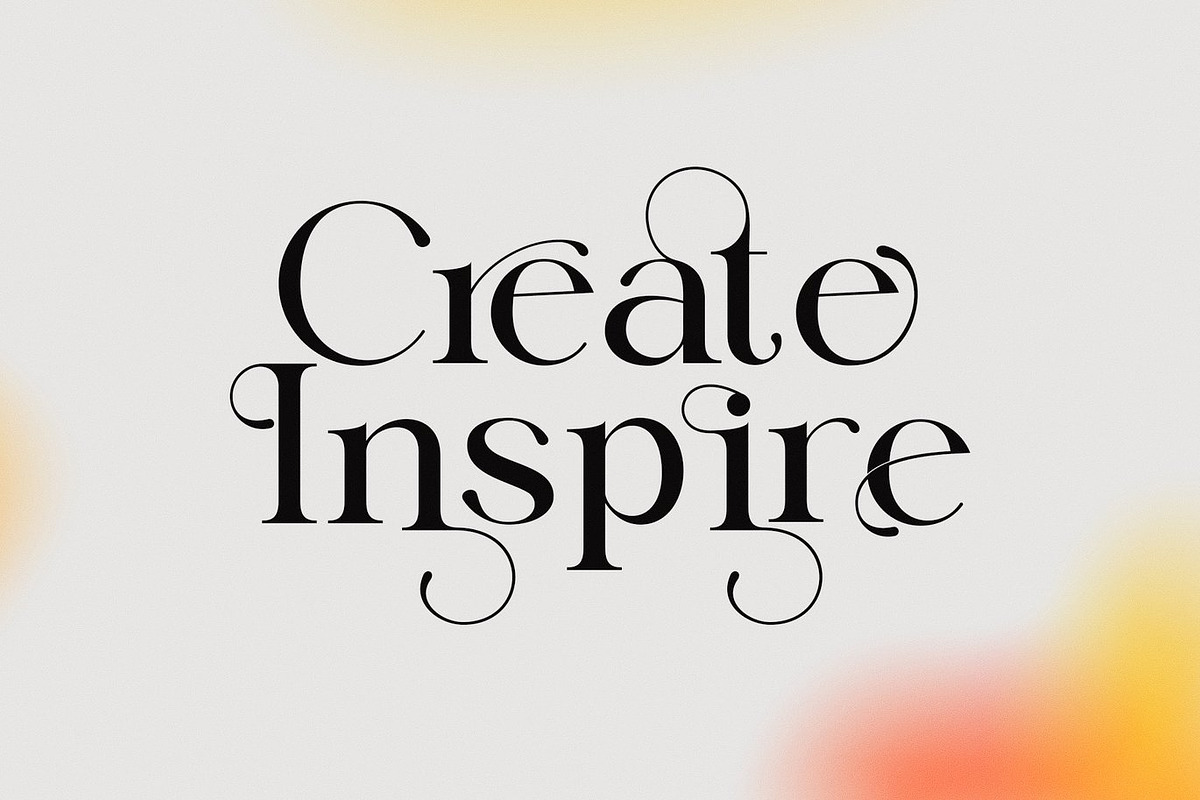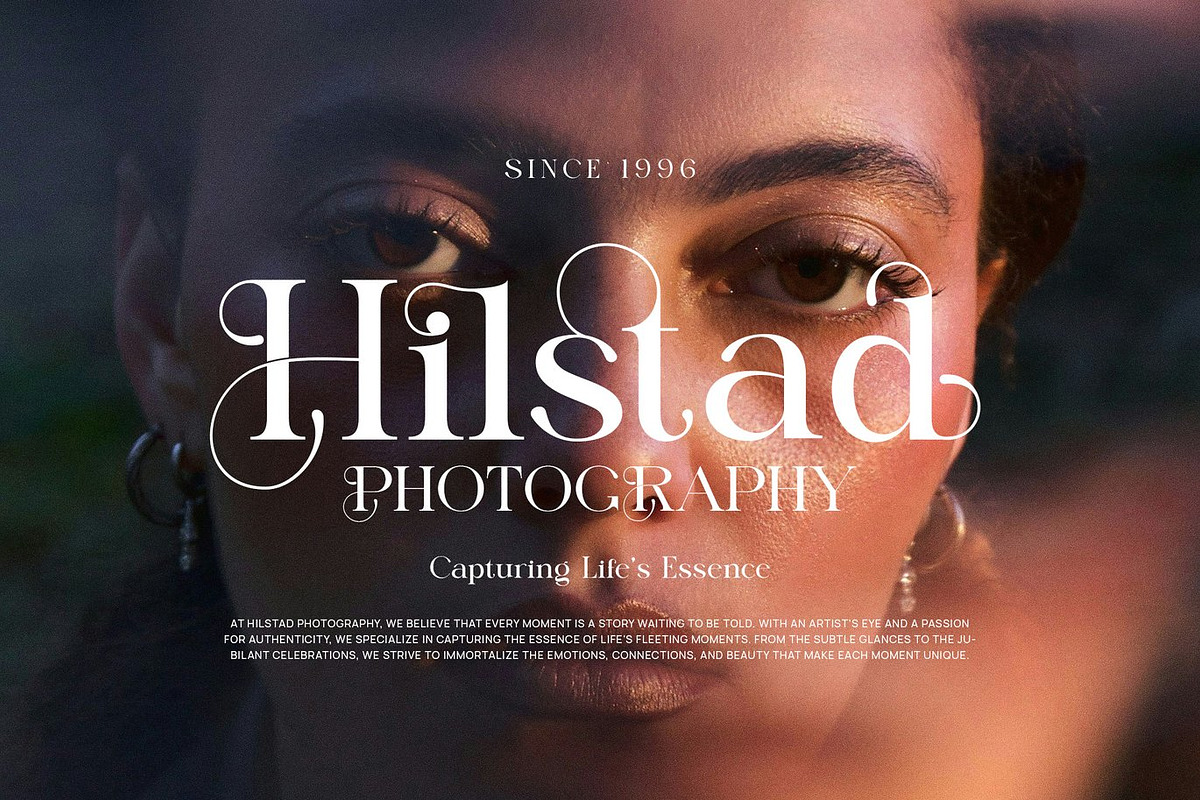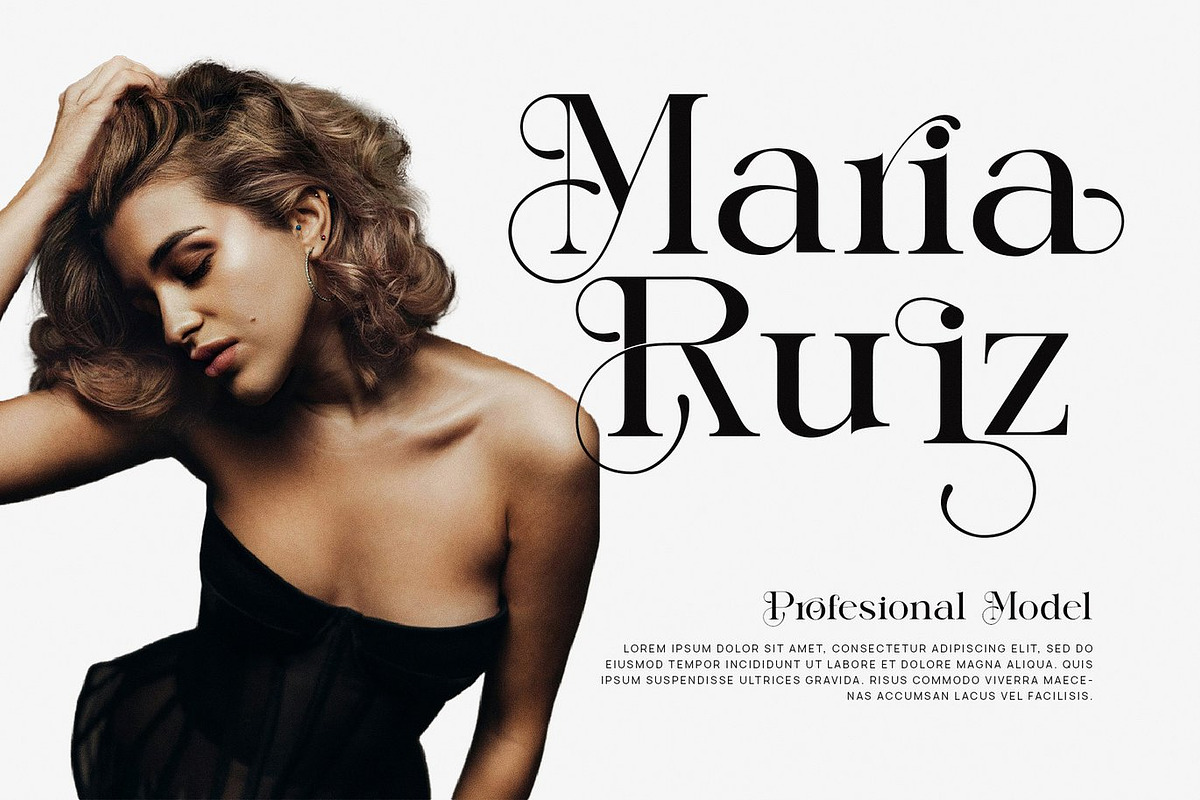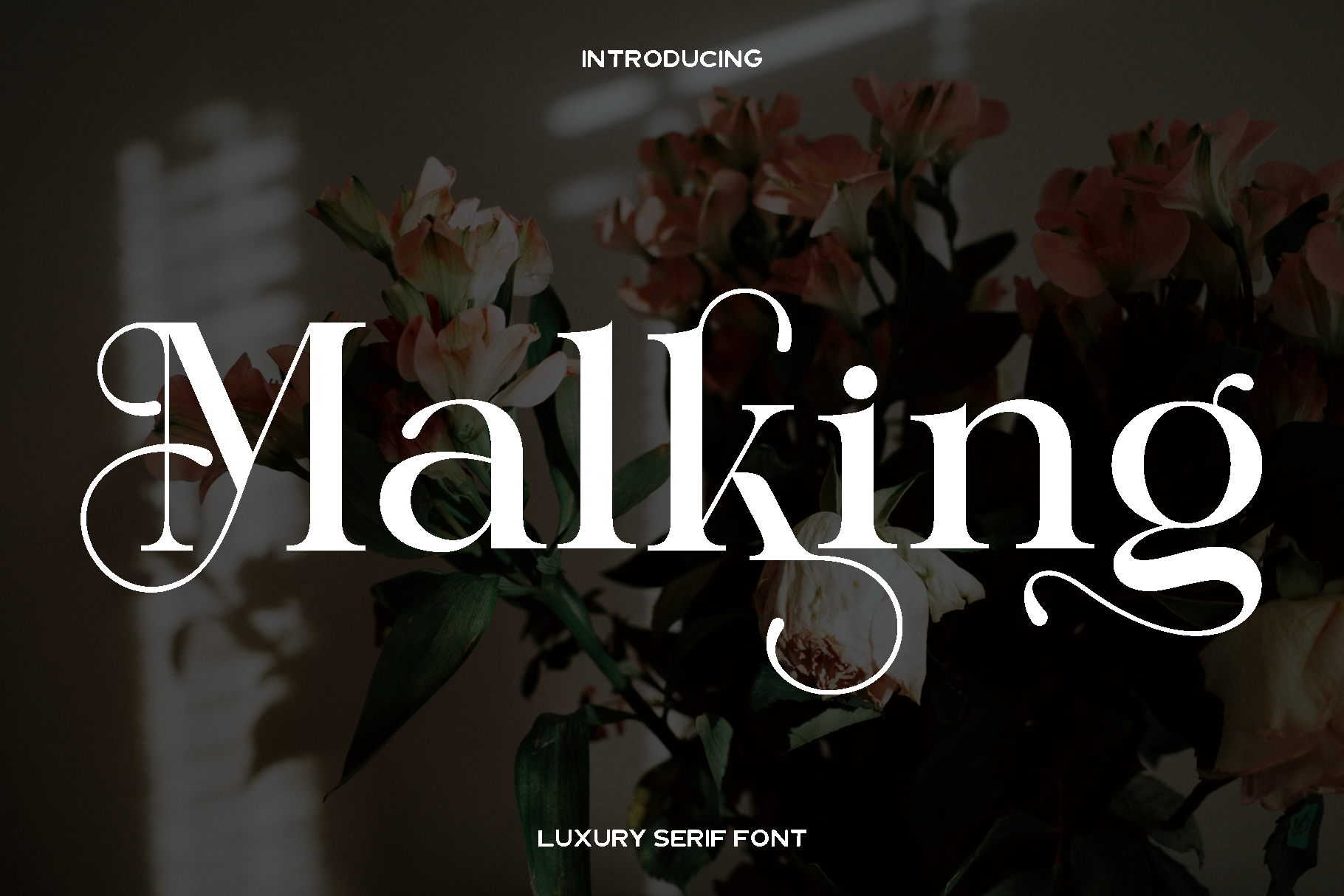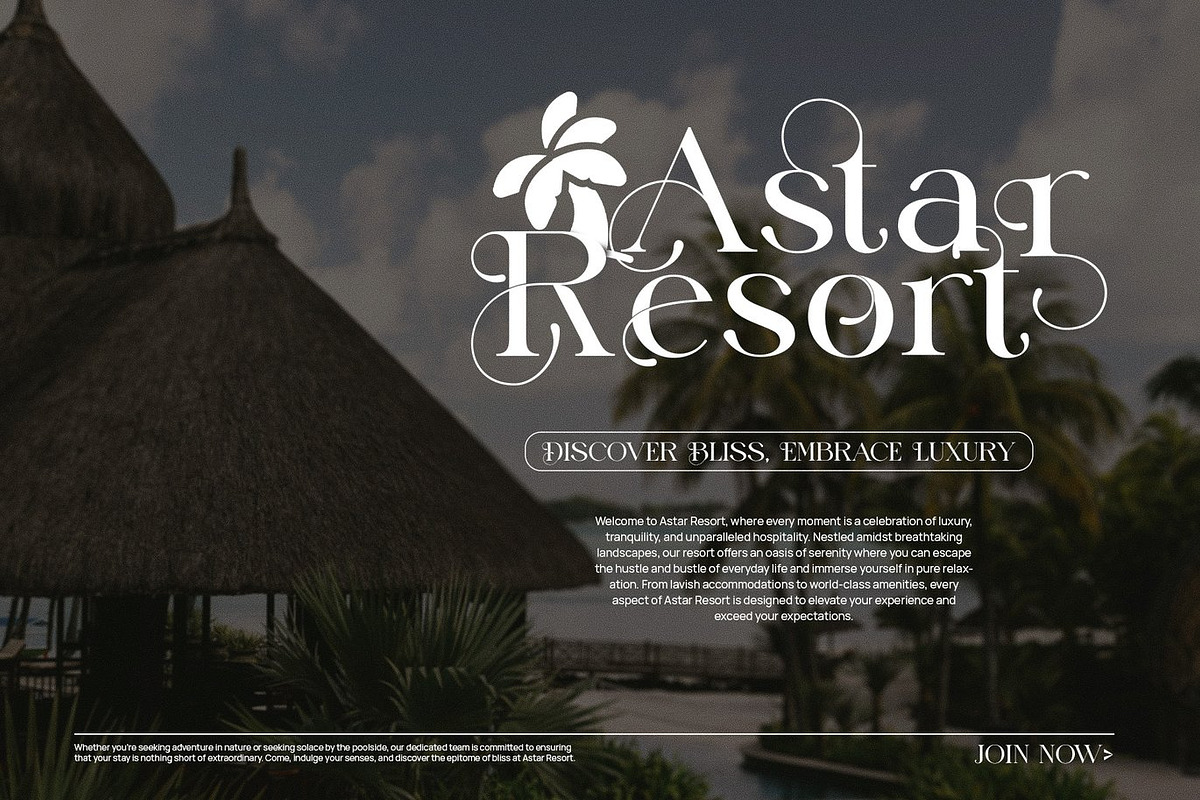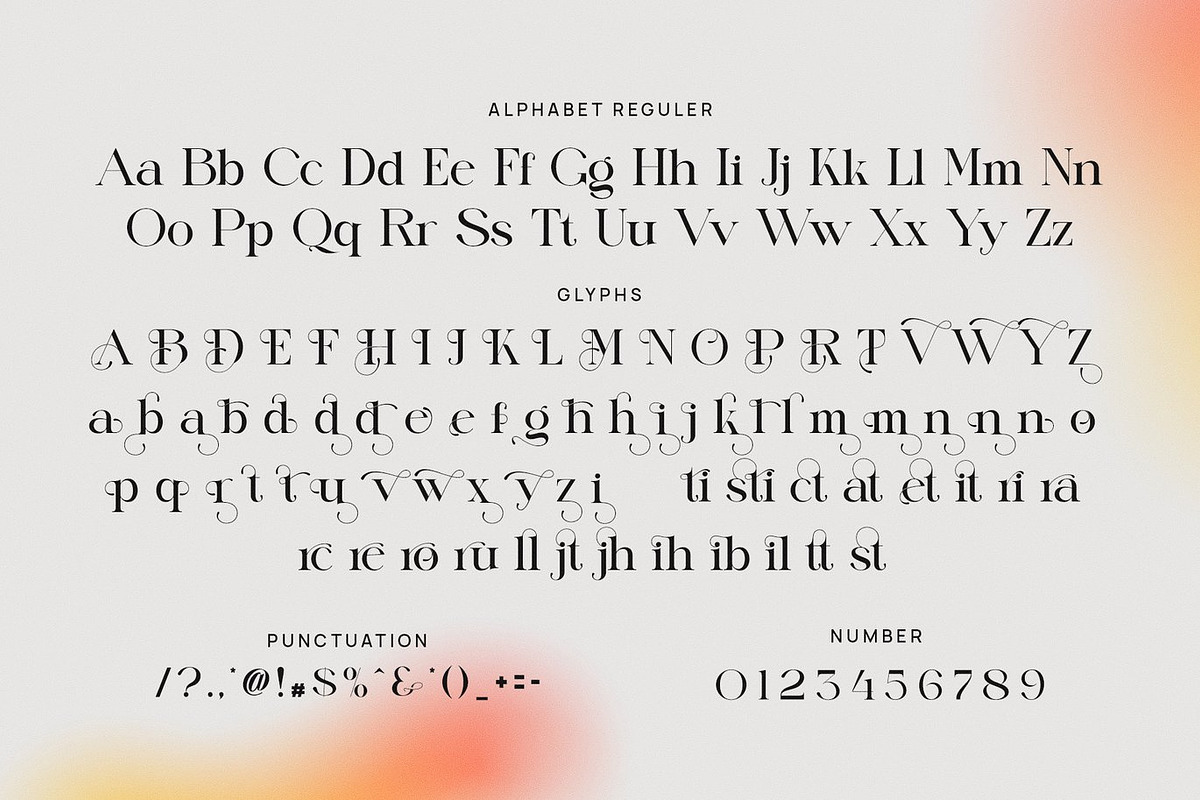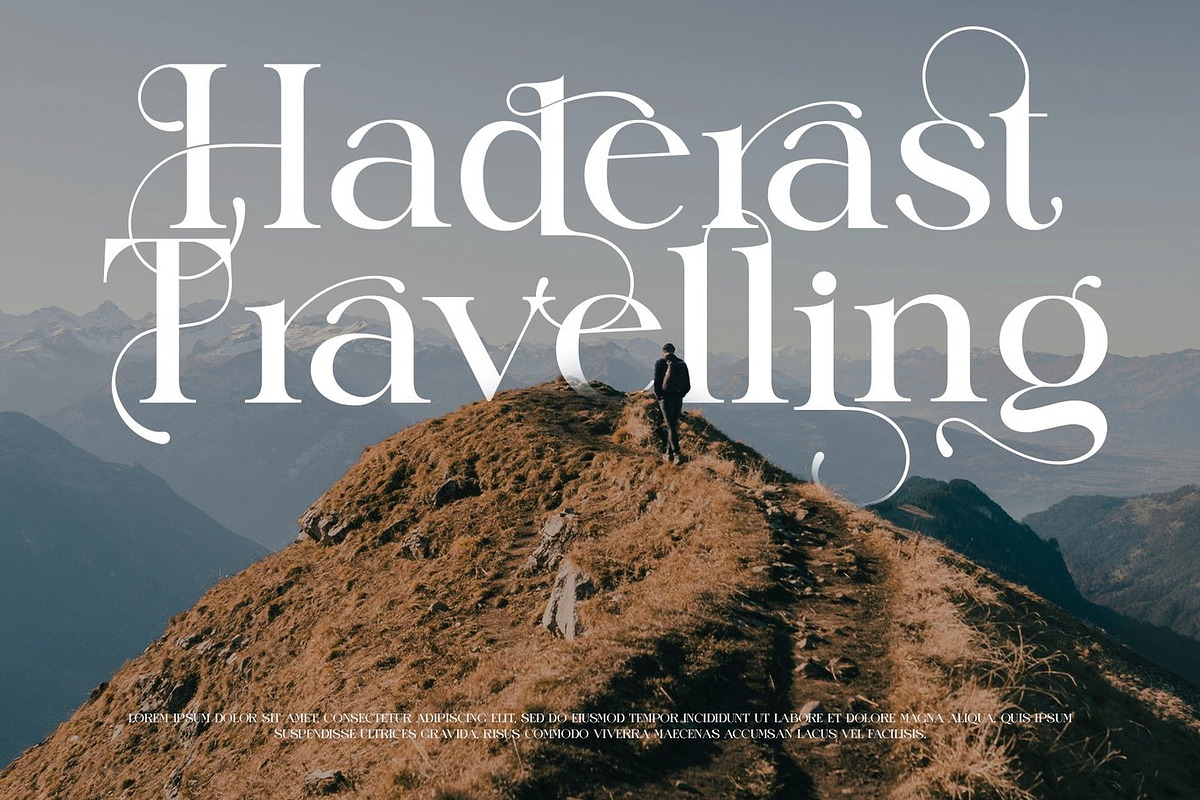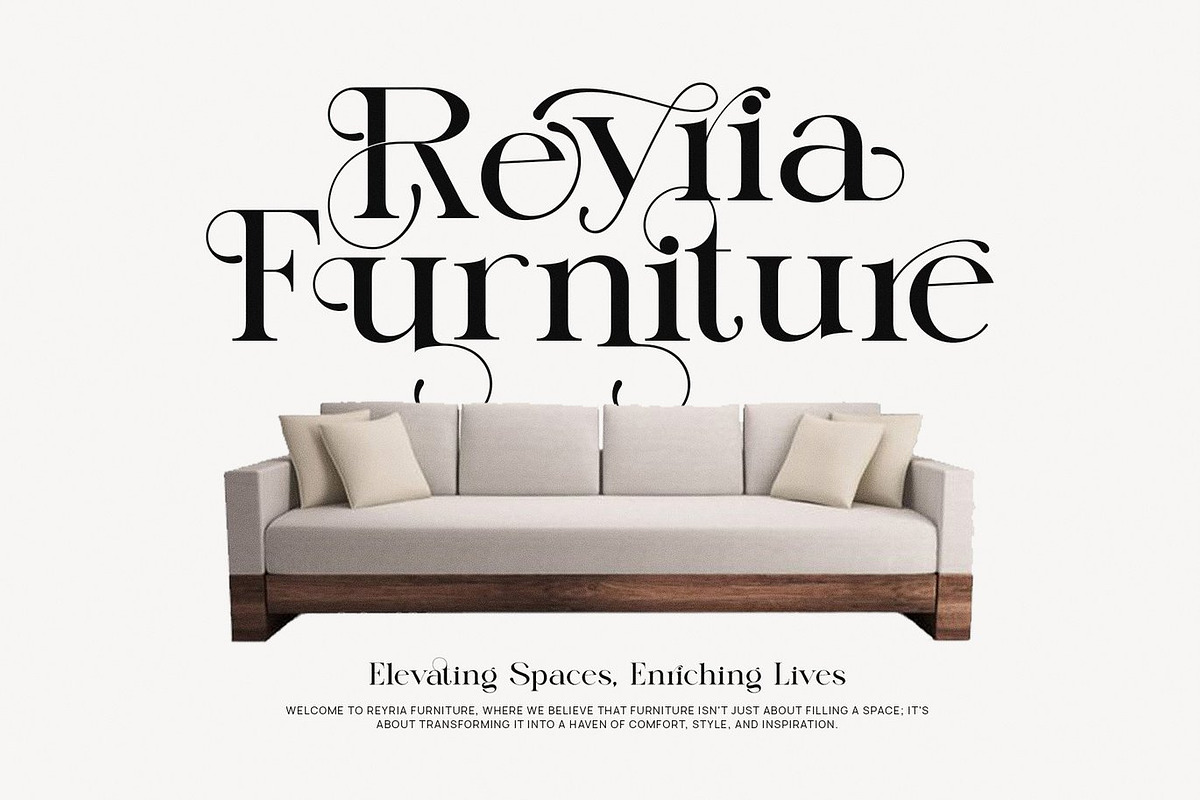
Malking - Luxury Serif Font
Malking is a refined serif font created to express elegance, class, and timeless luxury. Designed with carefully balanced proportions and graceful details, Malking brings a sophisticated personality to every letter. Its smooth curves and classic serif structure are inspired by high end branding and premium design aesthetics, making it a strong choice for projects that require a polished and professional look.
This font truly shines in branding and logo design, where clarity and style must work together. Malking is perfect for luxury identities, fashion brands, product packaging, labels, wedding designs, editorial layouts, and refined advertising materials. Its high level of legibility ensures that it performs beautifully in both large headlines and smaller text applications, maintaining elegance across all uses.
Malking feels confident, graceful, and premium. Whether applied to social media graphics, invitations, stationery, watermarks, photography branding, or promotional content, it enhances your visuals with a sense of quality and trust. Designed for versatility, Malking works seamlessly across print and digital projects, making it a reliable addition to any designer’s font collection.
Malking Elegant Serif Font Features:
• Elegant and classy serif characters
• Standard character set
• Numbers and punctuation included
• Uppercase and lowercase
• Accented characters for Western European languages